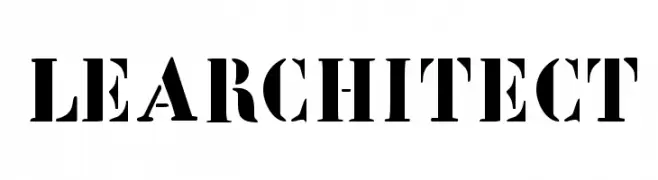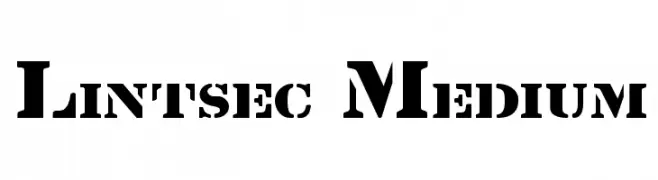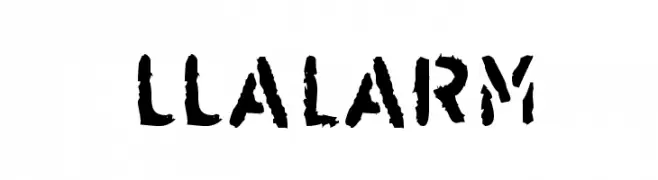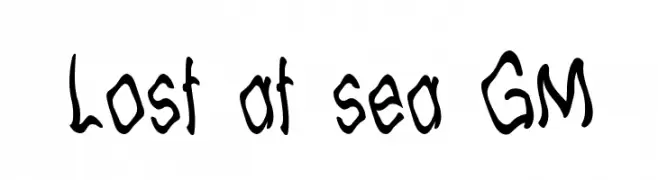
A bold, geometric font with a modern and angular design.
A futuristic, geometric font with a bold, stencil-like design.
A bold stencil font with high contrast and modern appeal.
A bold, stencil-like font with high contrast and a modern, industrial style.
A bold, distressed stencil-style font with rugged, uneven characters.
A bold, hand-drawn font with an artistic and playful style.
A bold, hand-drawn font with textured strokes and a playful, artistic style.
A rugged, stencil-style font with jagged edges and a bold presence.
A whimsical, hand-drawn font with an organic, playful style.